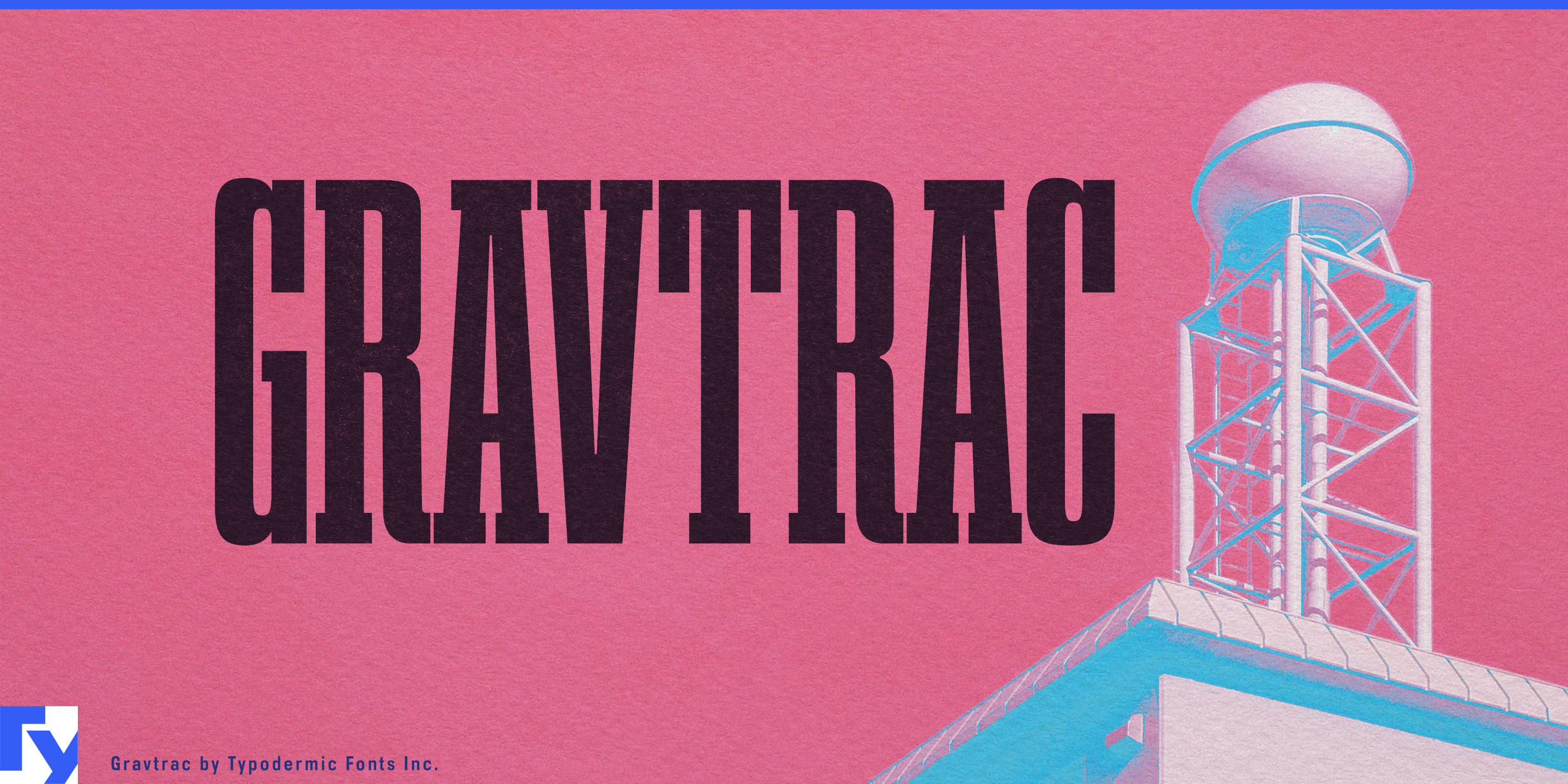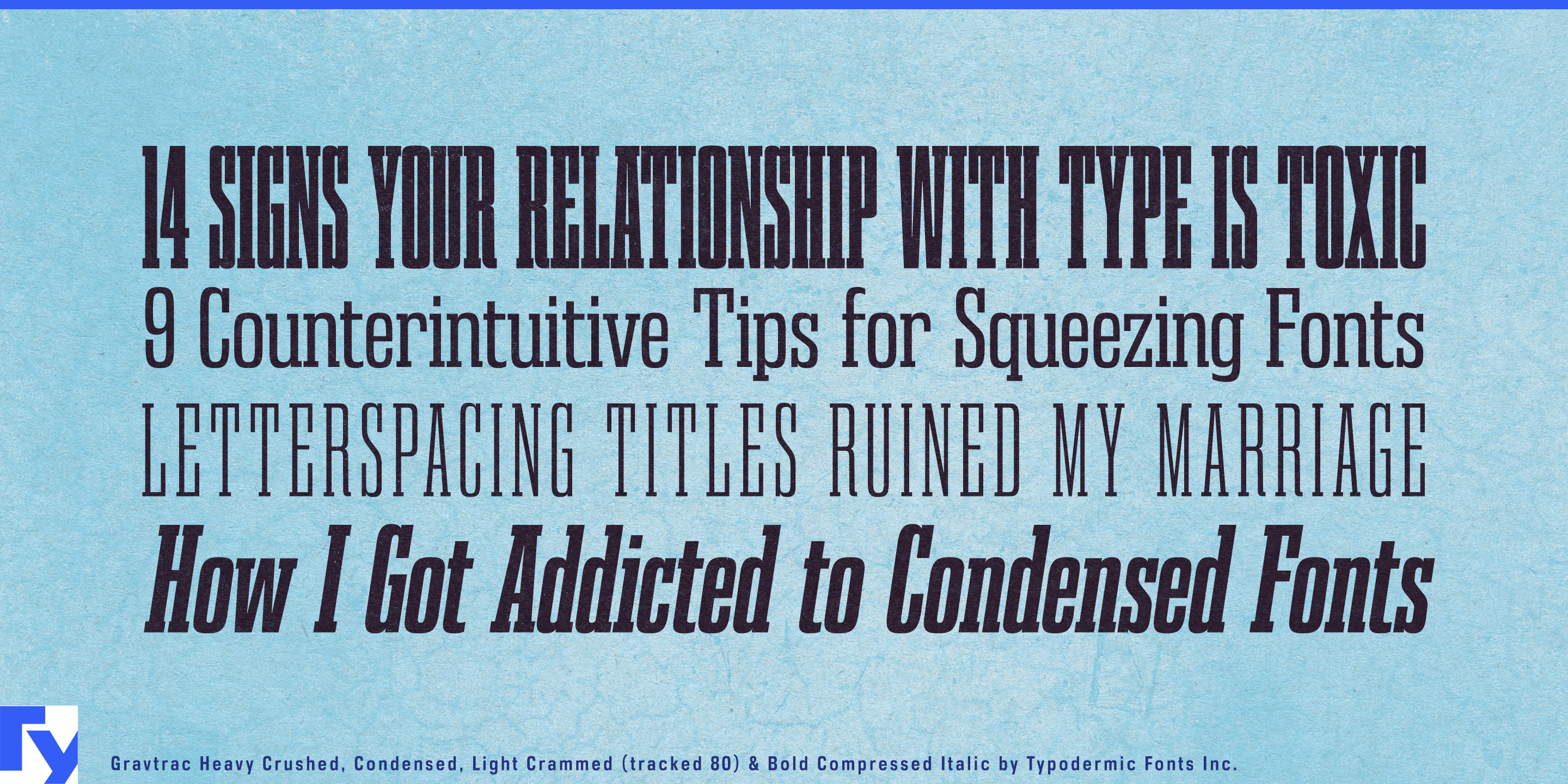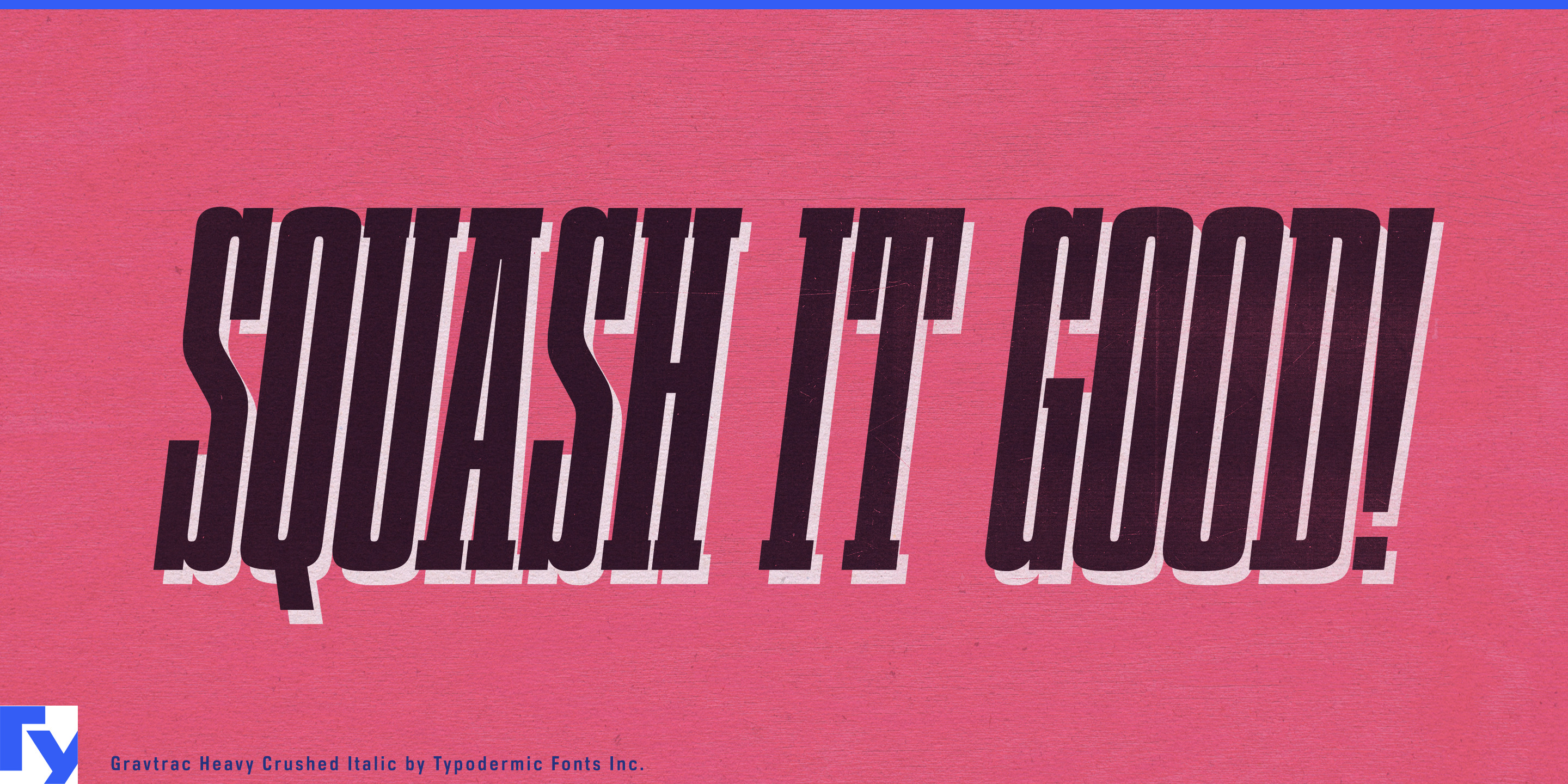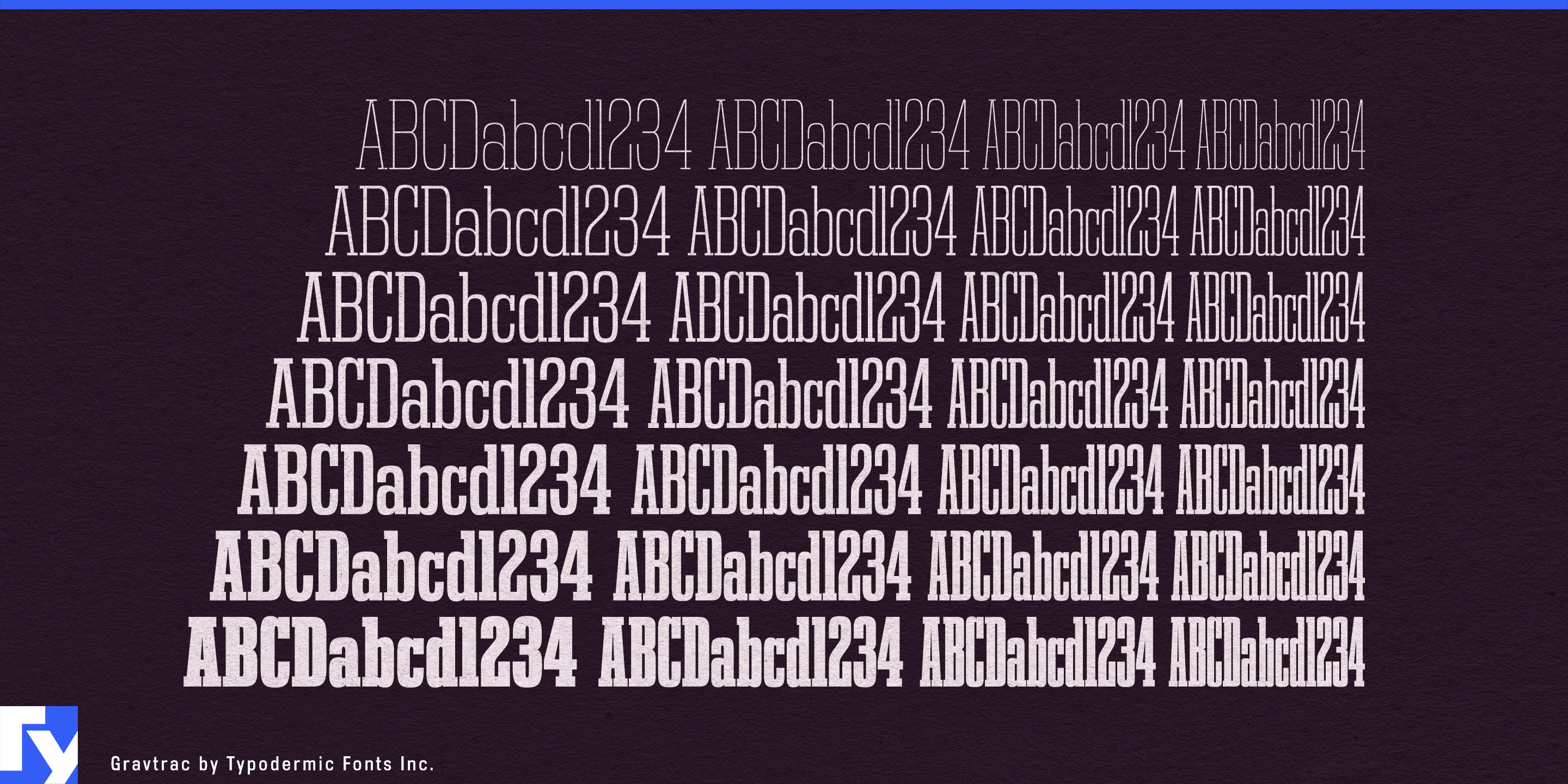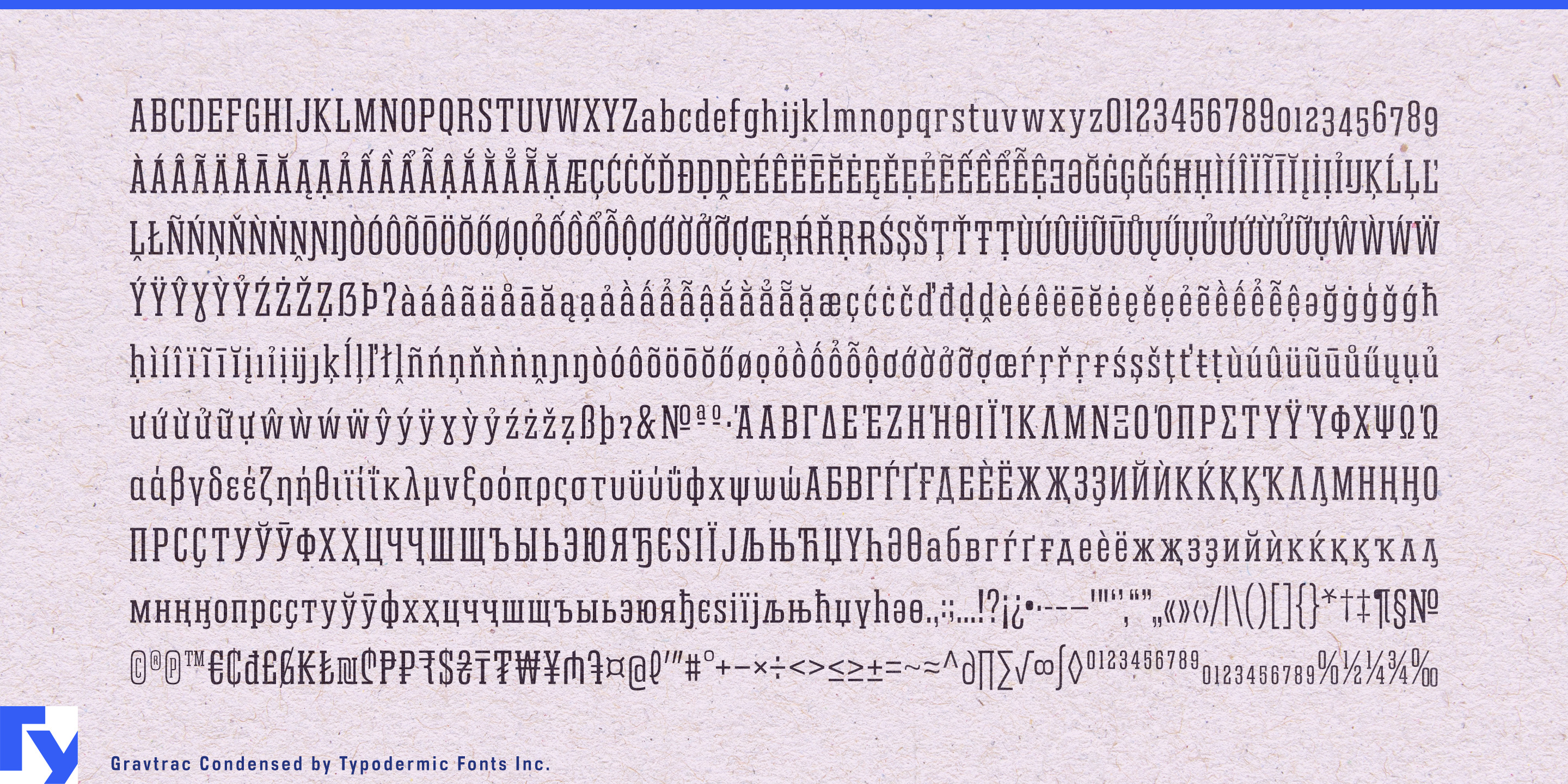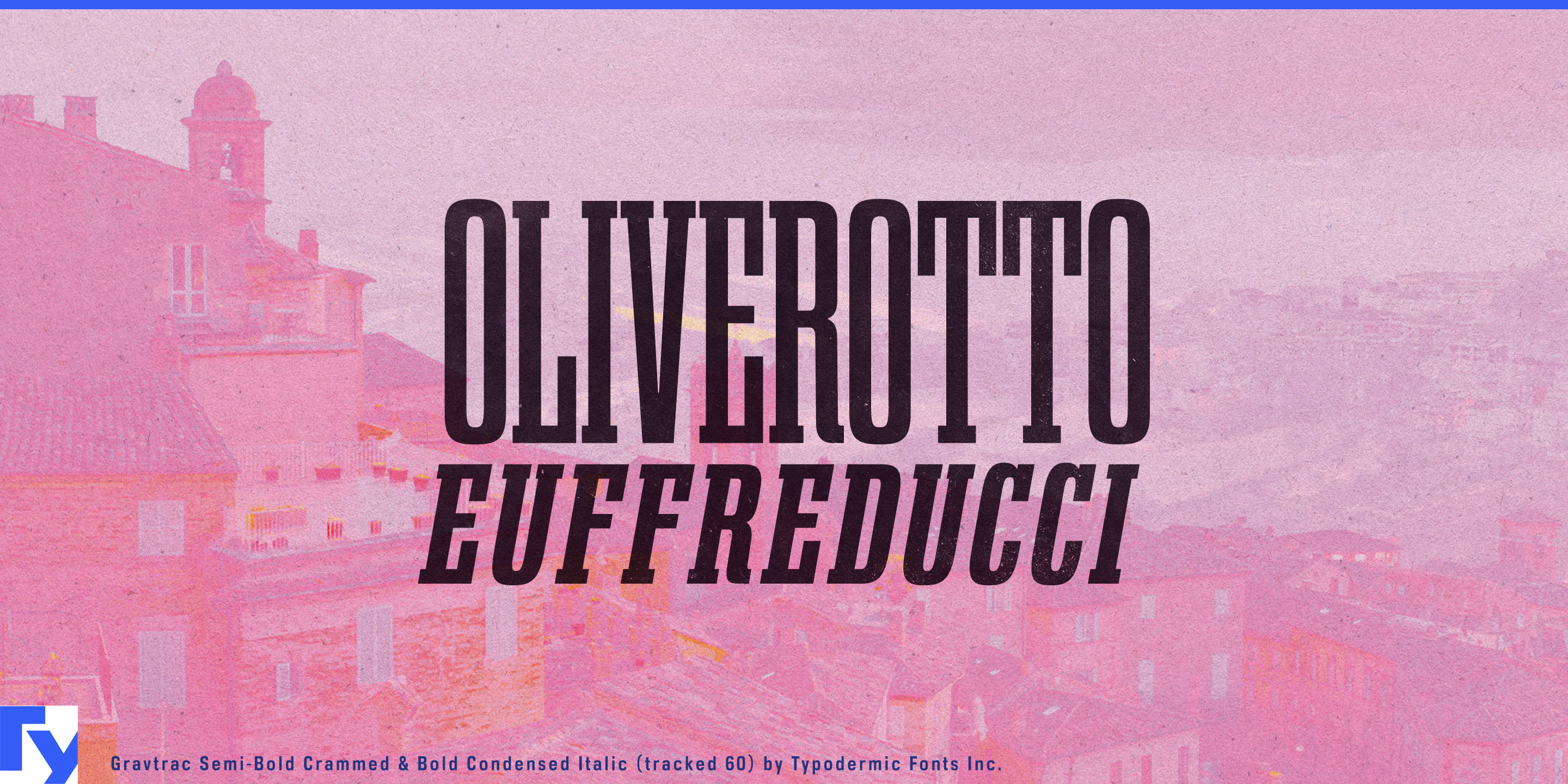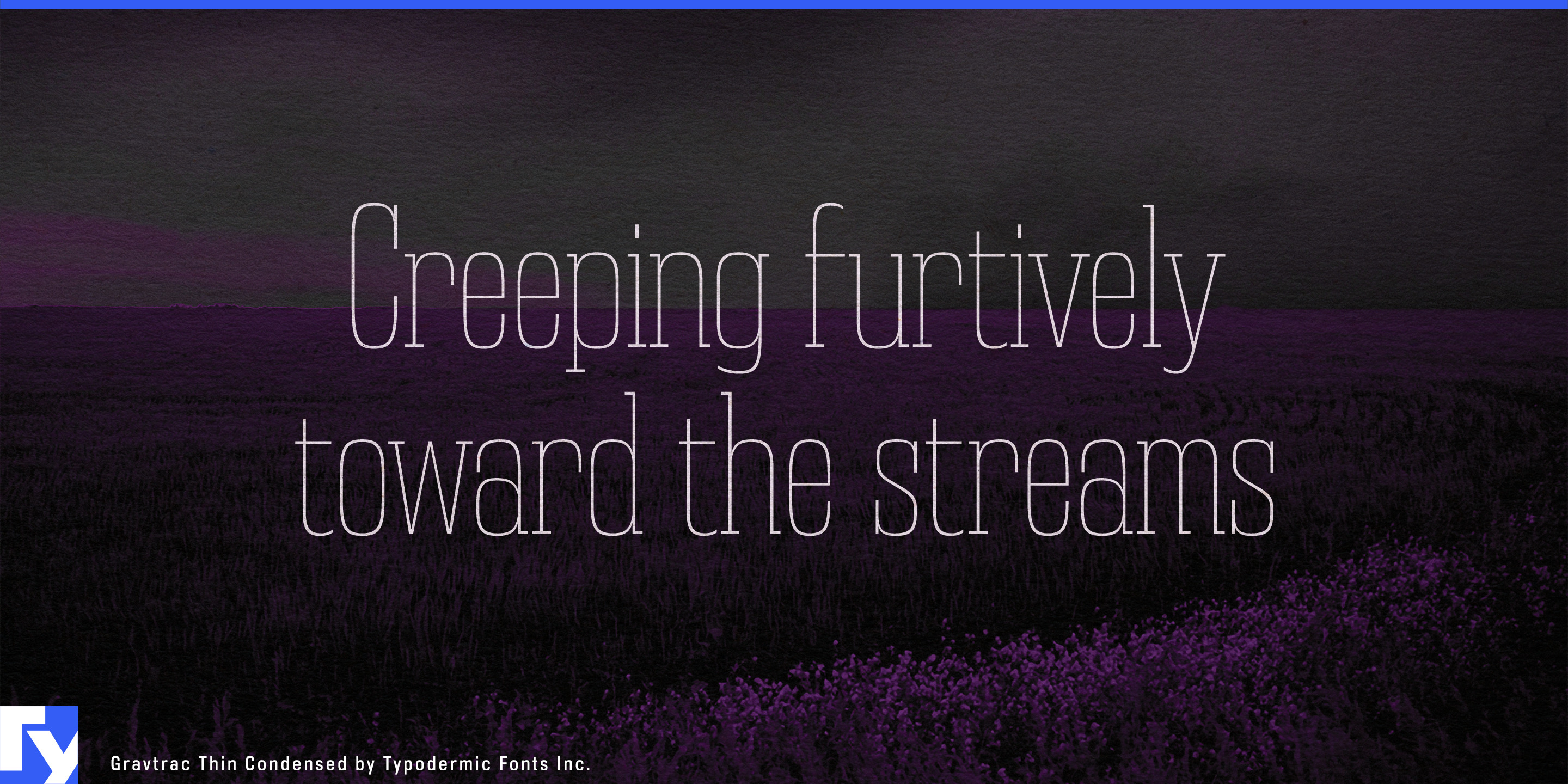
Gravtrac
A product name that works across a brochure can become a problem the moment it has to fit on a charger cabinet, robot mast, shipping container, rack enclosure, or narrow trade-show panel. Switching to another typeface solves the space problem but weakens the visual system. Gravtrac was built for exactly this kind of pressure.
The family moves through four progressively narrower widths: Condensed, Compressed, Crammed, and Crushed. Even Condensed starts narrow; Crushed pushes the idea close to its practical limit. Each width spans seven weights from Thin through Heavy with matching italics, creating 56 styles that can adapt to very different amounts of horizontal space without abandoning the same basic letterforms. The italics become less inclined as the widths tighten, helping the narrowest styles remain balanced.
That makes Gravtrac particularly useful for energy infrastructure. EV fast chargers, grid-storage cabinets, power-conversion systems, commercial battery equipment, inverters, and building-energy hardware often provide tall, narrow surfaces crowded with screens, connectors, ventilation, and regulatory information. A product-family name can begin in Condensed on a launch page, then move through Compressed or Crammed when the same identity has to fit an equipment fascia.
Industrial automation creates the same problem at a larger scale. Warehouse robots, autonomous forklifts, conveyor modules, robotic palletizers, machine-vision systems, and factory cells need typography across machinery, technical brochures, control cabinets, booth graphics, manuals, and product diagrams. Gravtrac can keep a long model or platform name recognizable across those different surfaces while heavier styles handle equipment markings and lighter styles take on diagrams and technical headings.
Freight and logistics provide another natural environment. Shipping containers, trailers, rail equipment, cargo terminals, depot signs, fleet graphics, and equipment identifiers are built from long rectangles and fixed spaces. Gravtrac’s tall slab-serif structure gives these systems a strong physical presence without imitating historical railway lettering. Its Latin, Greek, and Cyrillic coverage can also support international transport systems operating across multiple script regions.
Data-center infrastructure presents a newer version of the same design problem. Rack systems, liquid-cooling hardware, power-distribution units, network appliances, and modular data-center equipment increasingly need their own product identities while leaving most of the front panel available for controls, ports, airflow, and status information.
The width progression can also solve fixed-space problems in motorsport timing graphics, arena ribbon boards, cycling leaderboards, player introductions, and tournament brackets. A design can use Condensed for most entries and step progressively narrower only when a long surname, team name, or sponsor demands it.
Gravtrac is not simply one ultra-condensed display face repeated at several widths. Thin Condensed can create an airy technical heading; Heavy Crushed can turn a long name into a dense vertical block. The useful part is everything between them. When a design system has to move from a wide presentation to a narrow machine panel, container marking, equipment label, or scoreboard module, Gravtrac lets the typography change width instead of changing identity.